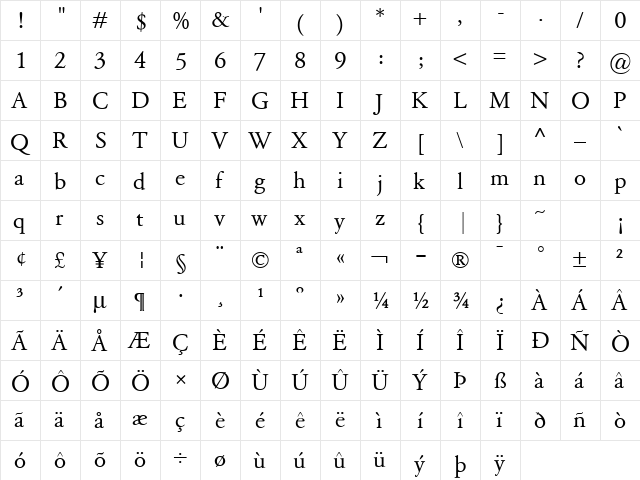
Garamond Classico Regular
Design Context for Garamond Classico Typeface
Garamond Classico has the warm character of retro typography — evoking diners, record sleeves, and the golden age of print advertising.
Font Pairing: Combine Garamond Classico with a simple slab or neutral sans — period-accurate companions reinforce the vintage feel without competing for attention.
Pro Tip: Use Garamond Classico for headlines and pull quotes rather than body copy — its personality is best appreciated in short, focused bursts.